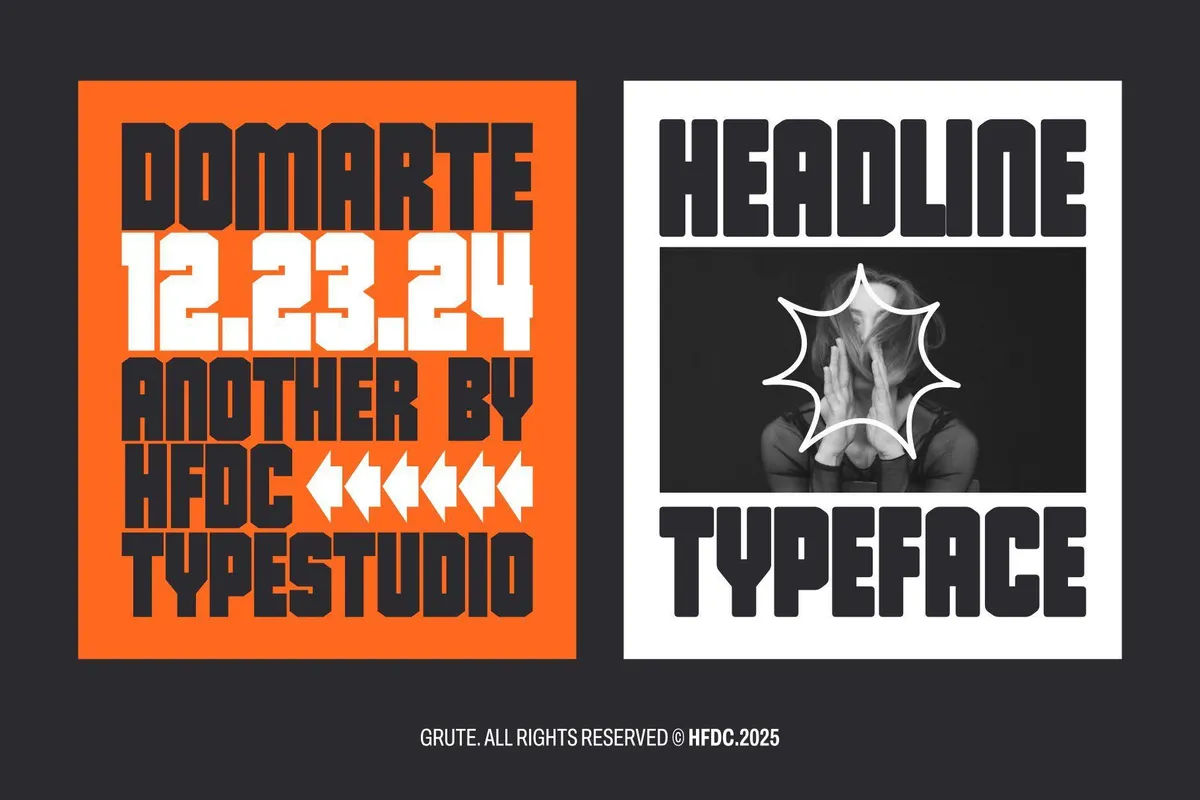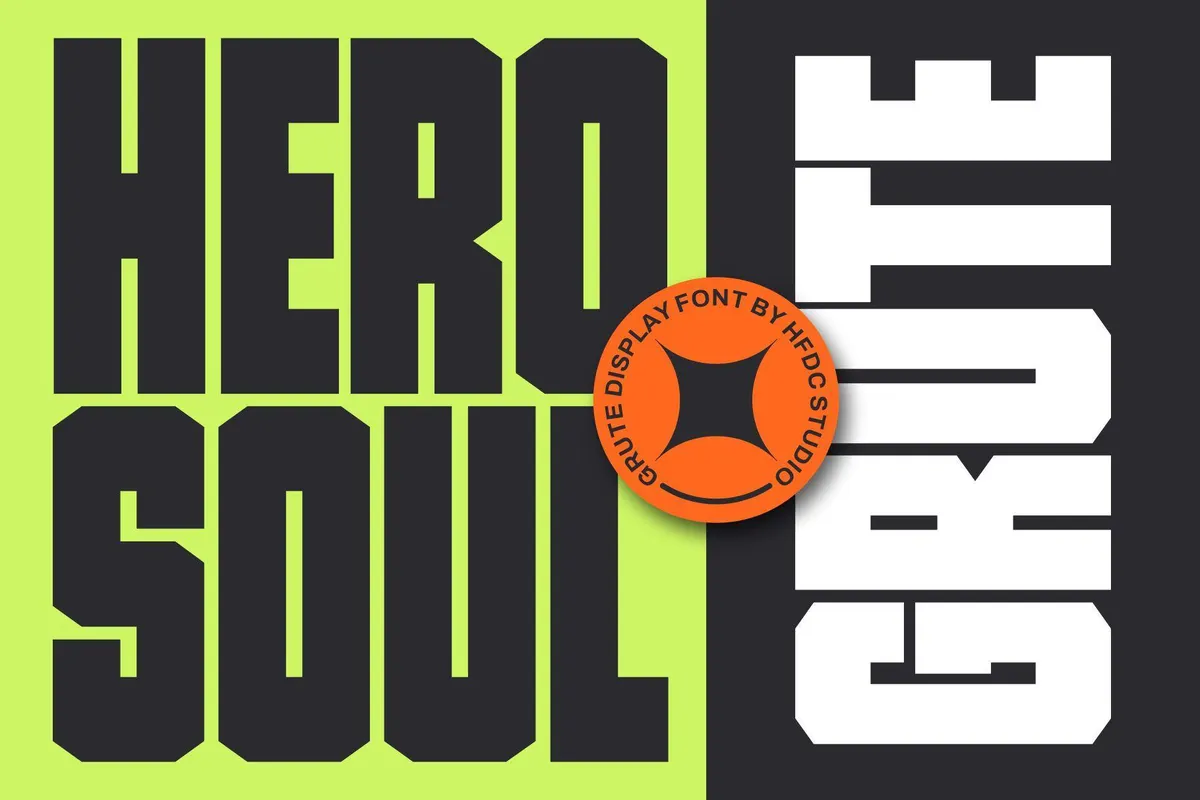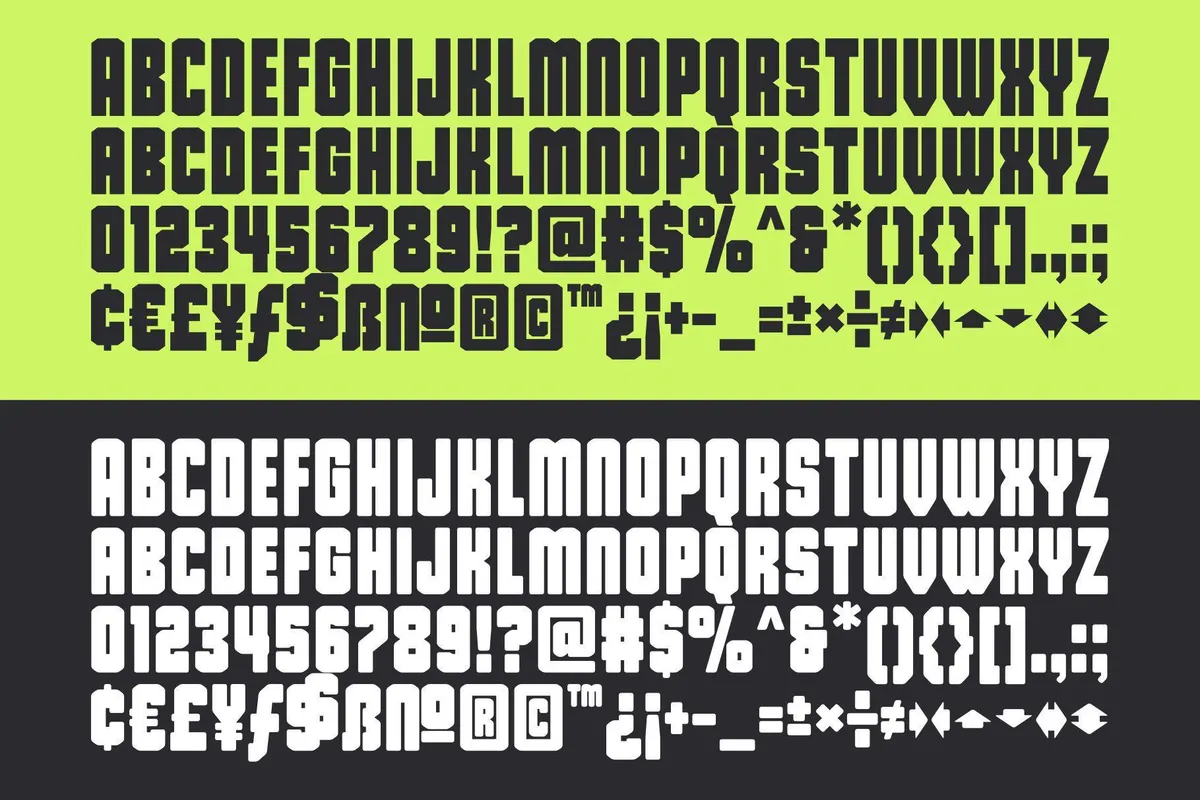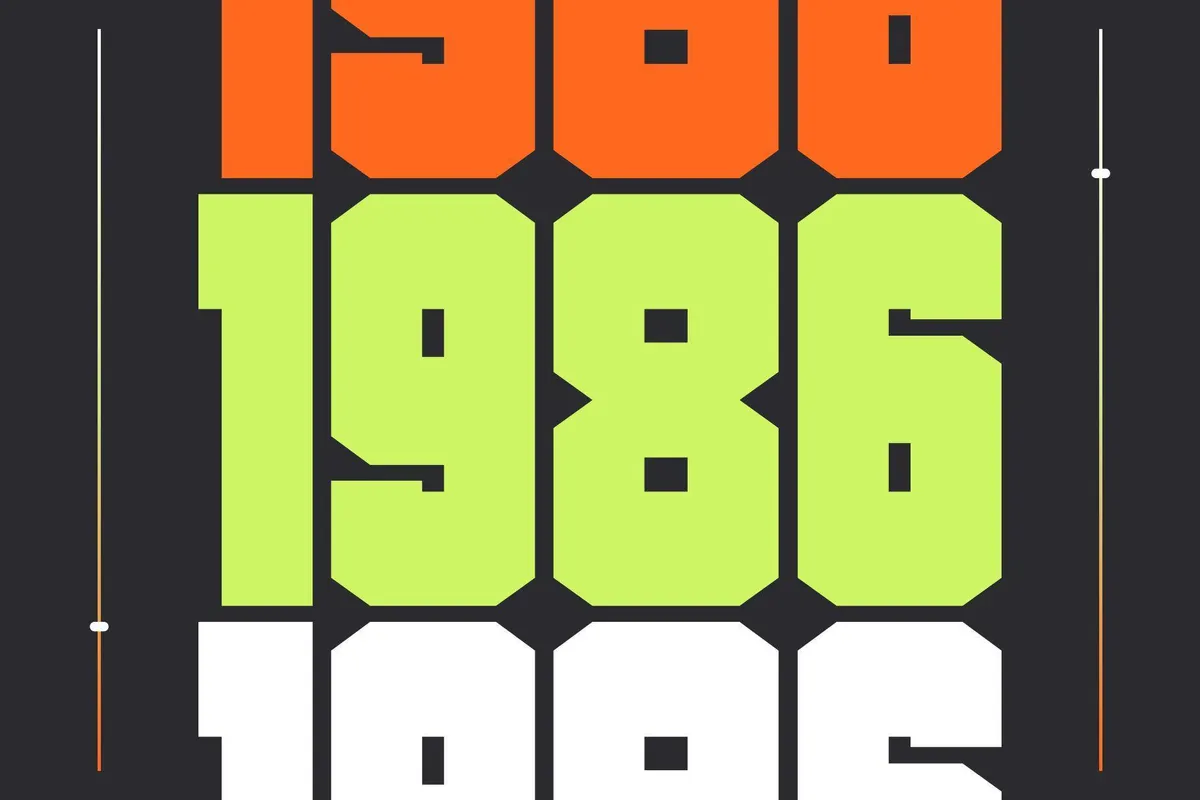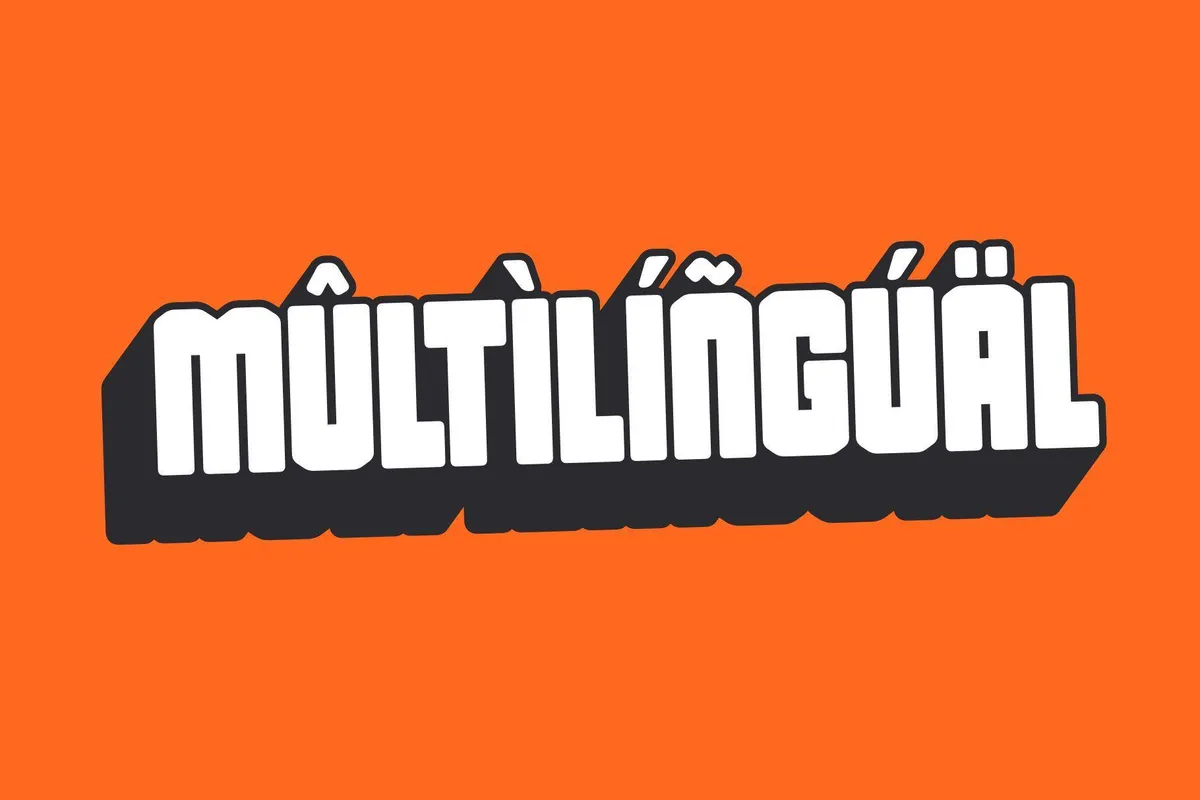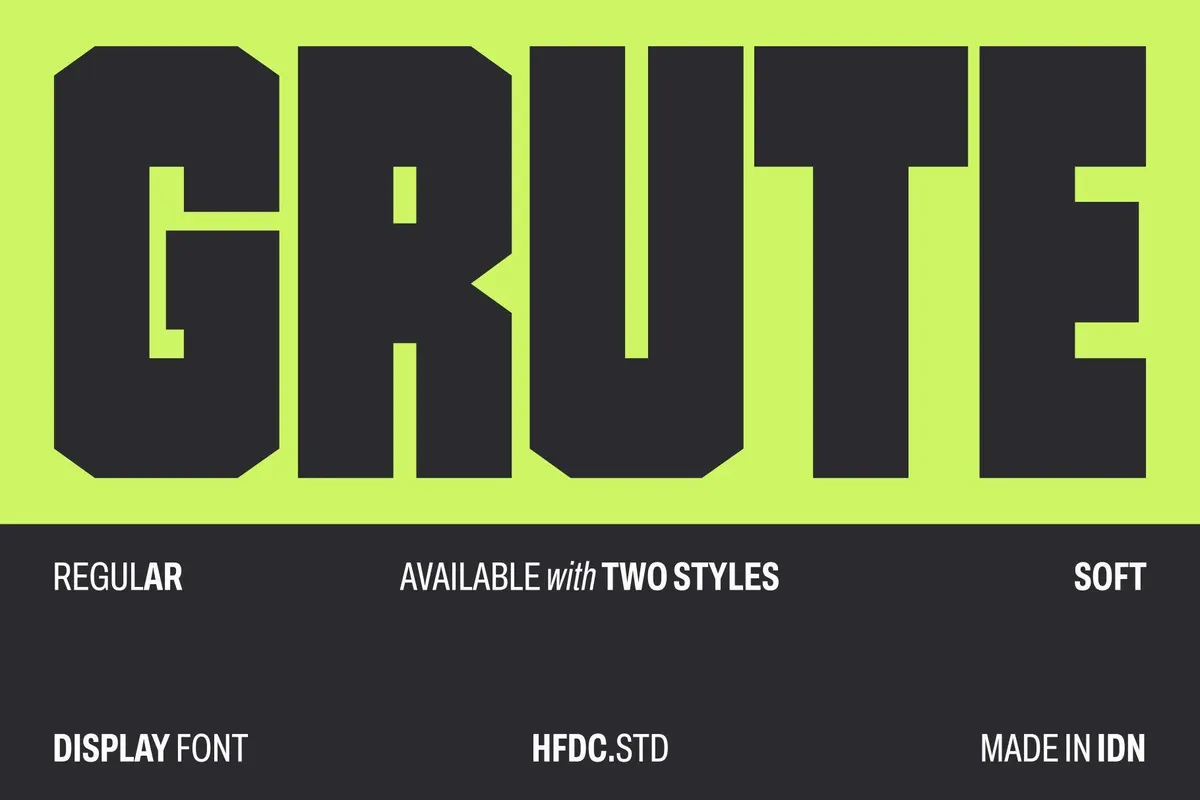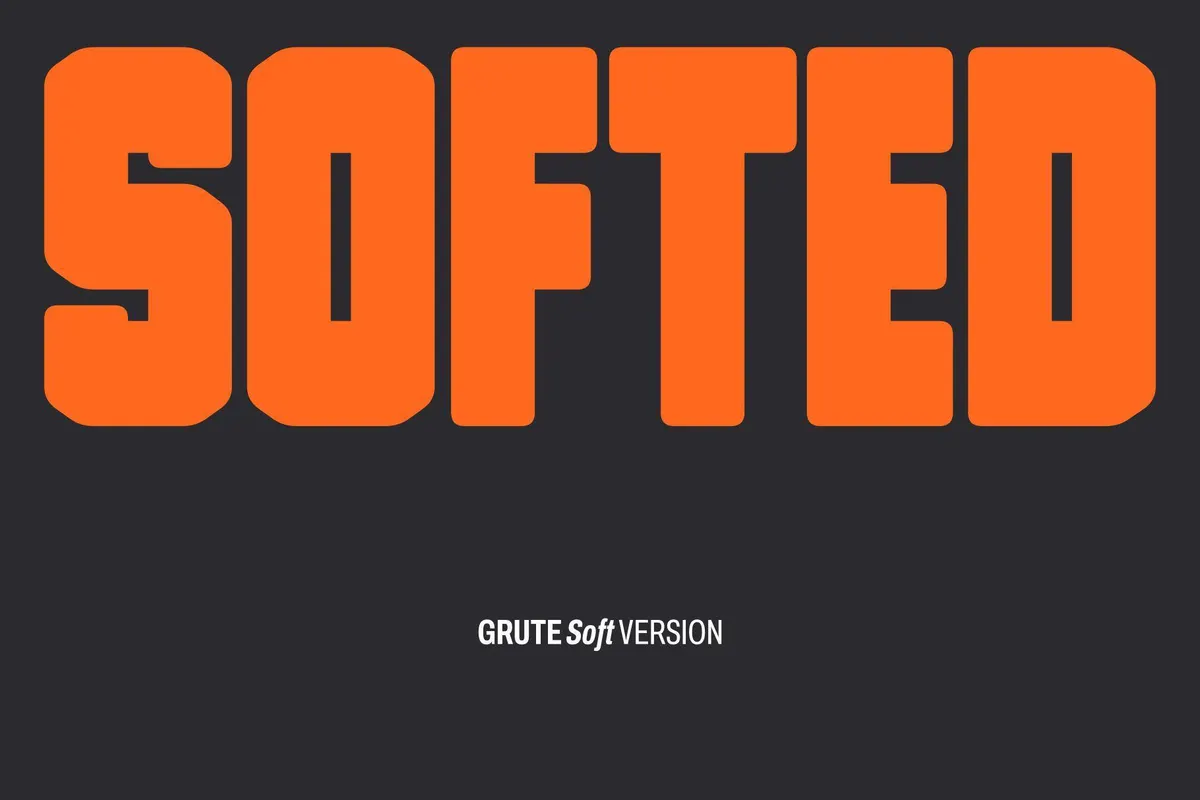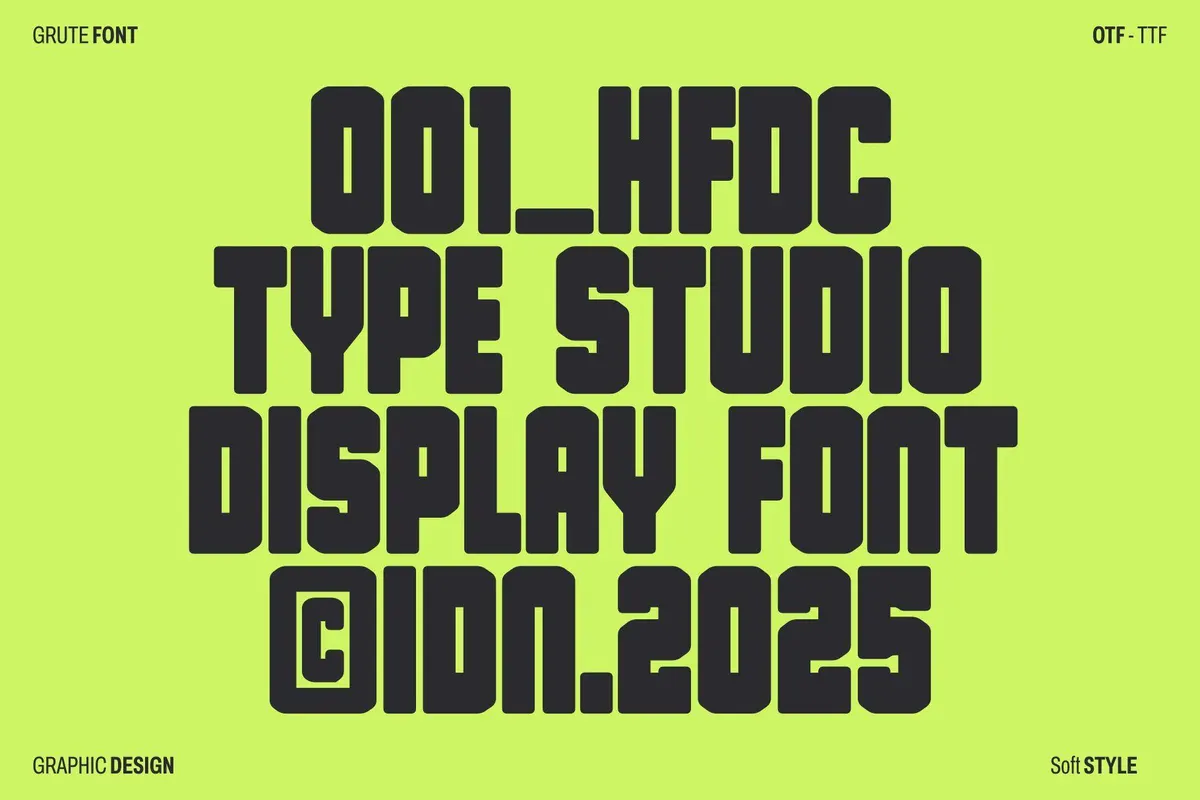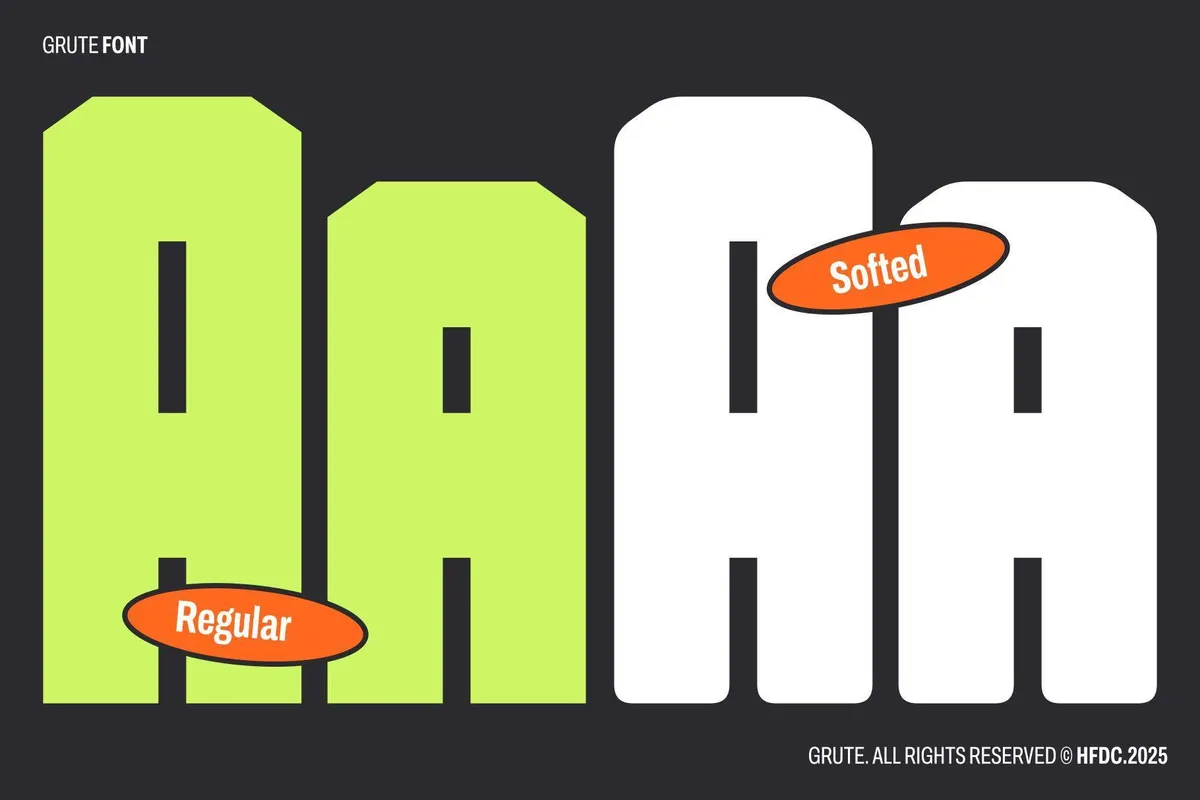
Grute Bold Sport Font
Grute
Soft
Grute is a strong and bold headline font. This font is suitable for sports-themed designs and can be used as a headline font in your design. This font has a bold, sporty, modern, and cheerful impression. Suitable for application to poster designs, branding, logos, packaging, labels, and others.
- Two styles available: Regular & Soft
- All caps font
- Number
- Punctuation
- Arrow symbol
- Currency symbol